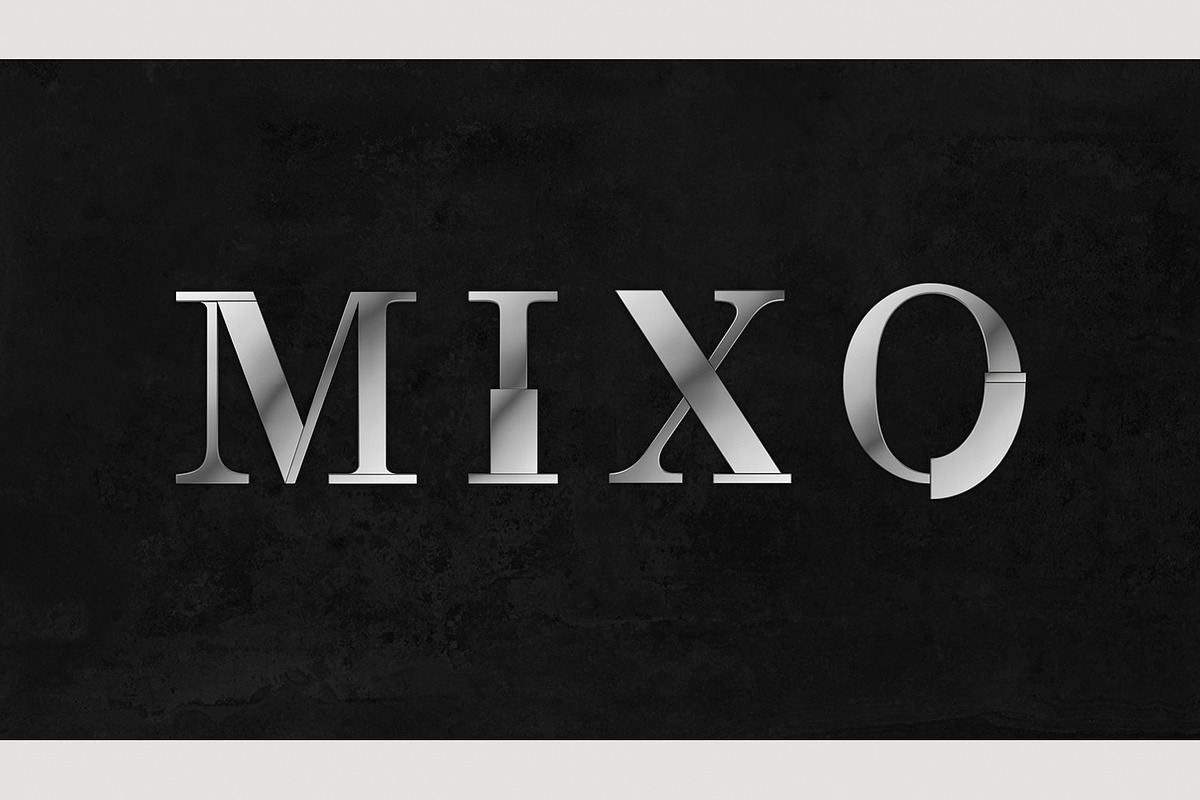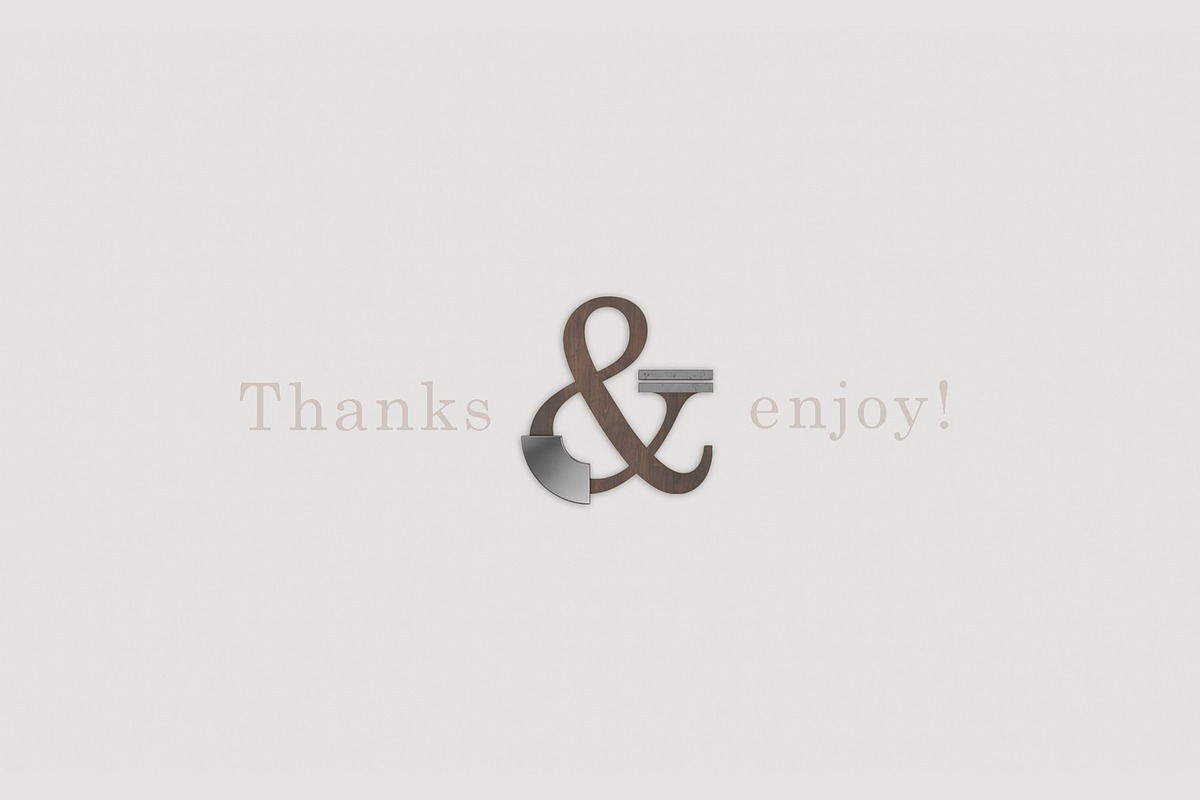
MIXO type kit
With this kit you can create amazing things! It includes letters (a-z), all numbers (0-9) and additional signs.Just drag & drop the different elements to create your own custom scenes and composition. This kit is great for creating banners, titles, quotes,... All the elements are provided as high-res 300 DPI files - each letter being about 3000 tall.
All symbols have several elements and 8 textures, which allows making a huge number of variations. For a better understanding, watch the video - https://www.youtube.com/watch?v=eq7XU3FMr0s